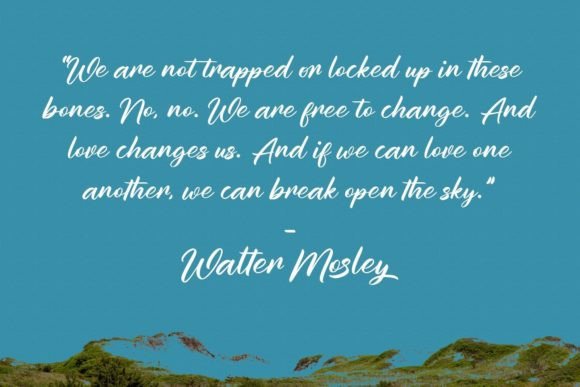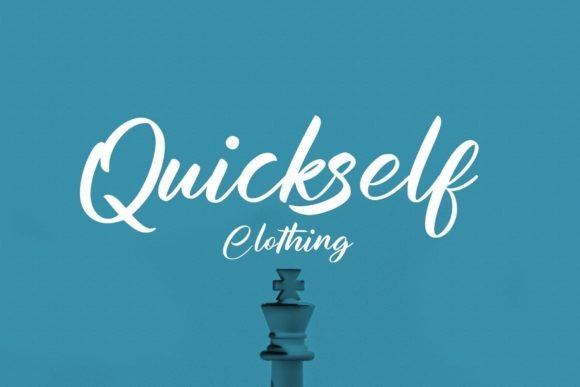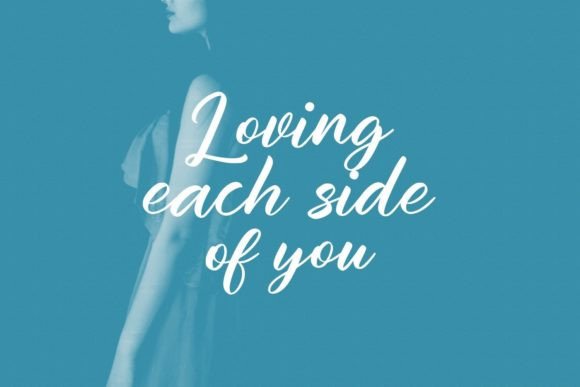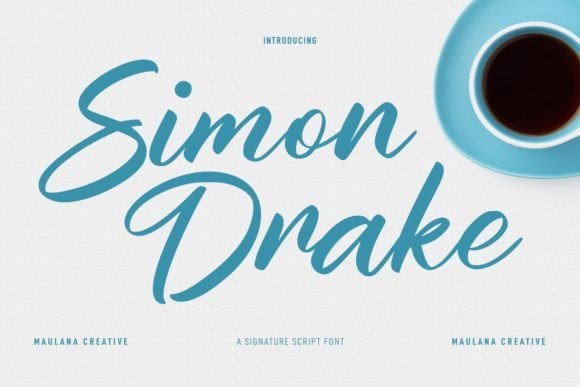
Introduction to Simon Drake Font
Simon Drake is a casual and modern script font featuring medium contrast strokes, fun characters with a bit of ligature, and alternates to give you extra creative work.
Simon Drake is good for logo design, Social media, Movie Titles, Books Titles, short text, and long text, and good for your secondary text together with a sans or serif Make a stunning work with Simon Drake.
Key Features of Simon Drake Font
Why Choose Simon Drake Font?
Simon Drake Font offers exceptional quality and versatility, making it a valuable addition to your design toolkit. Whether you’re creating for personal projects or commercial use, Simon Drake Font delivers professional results.